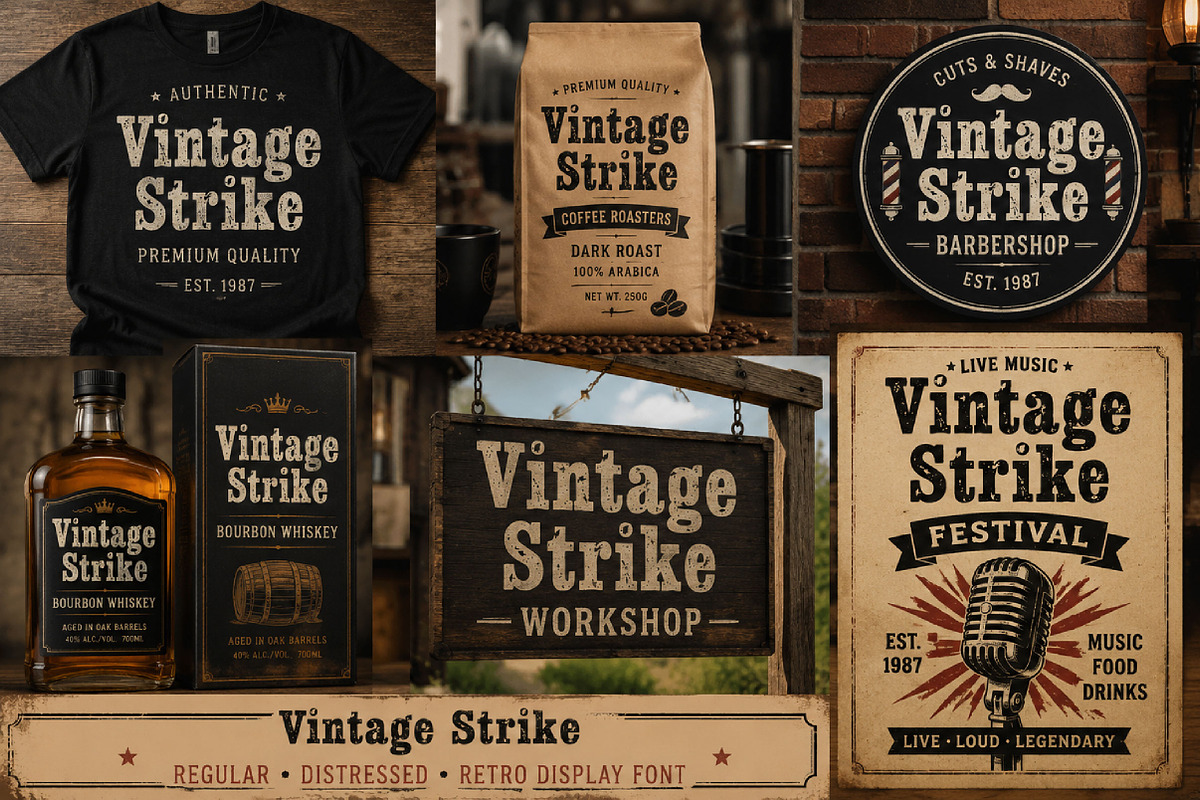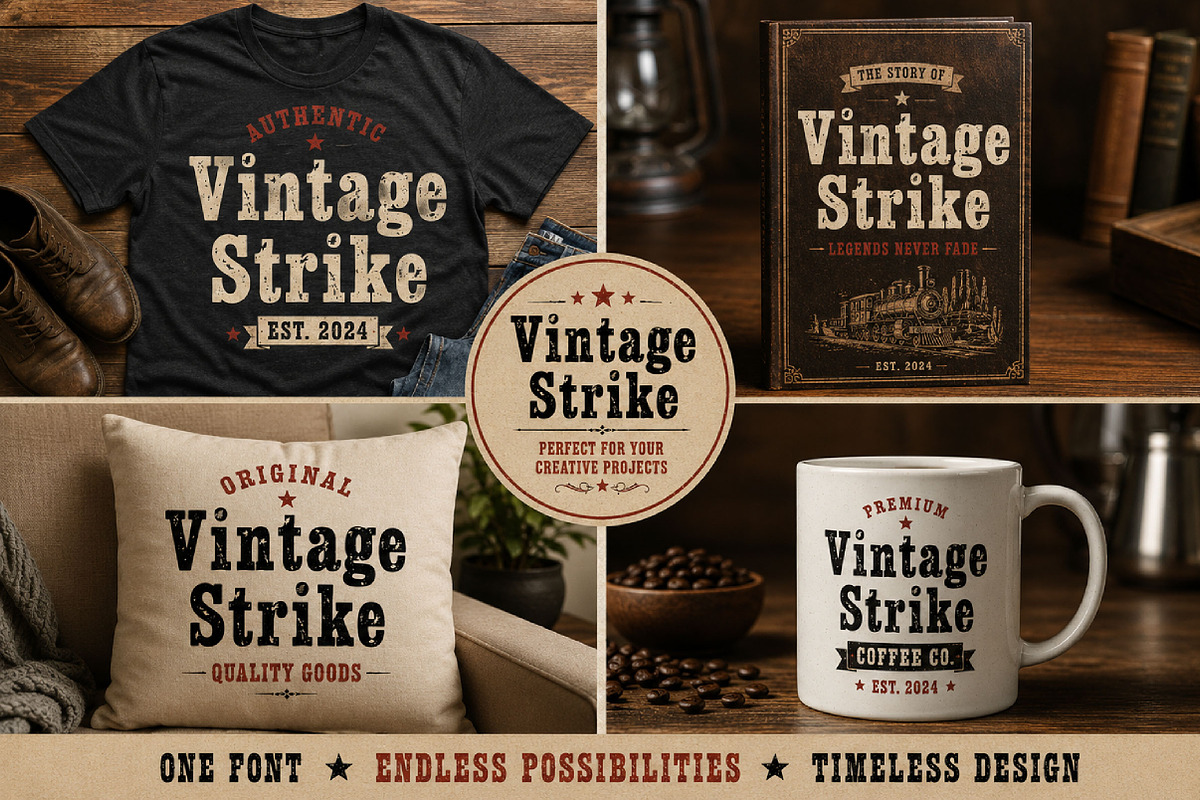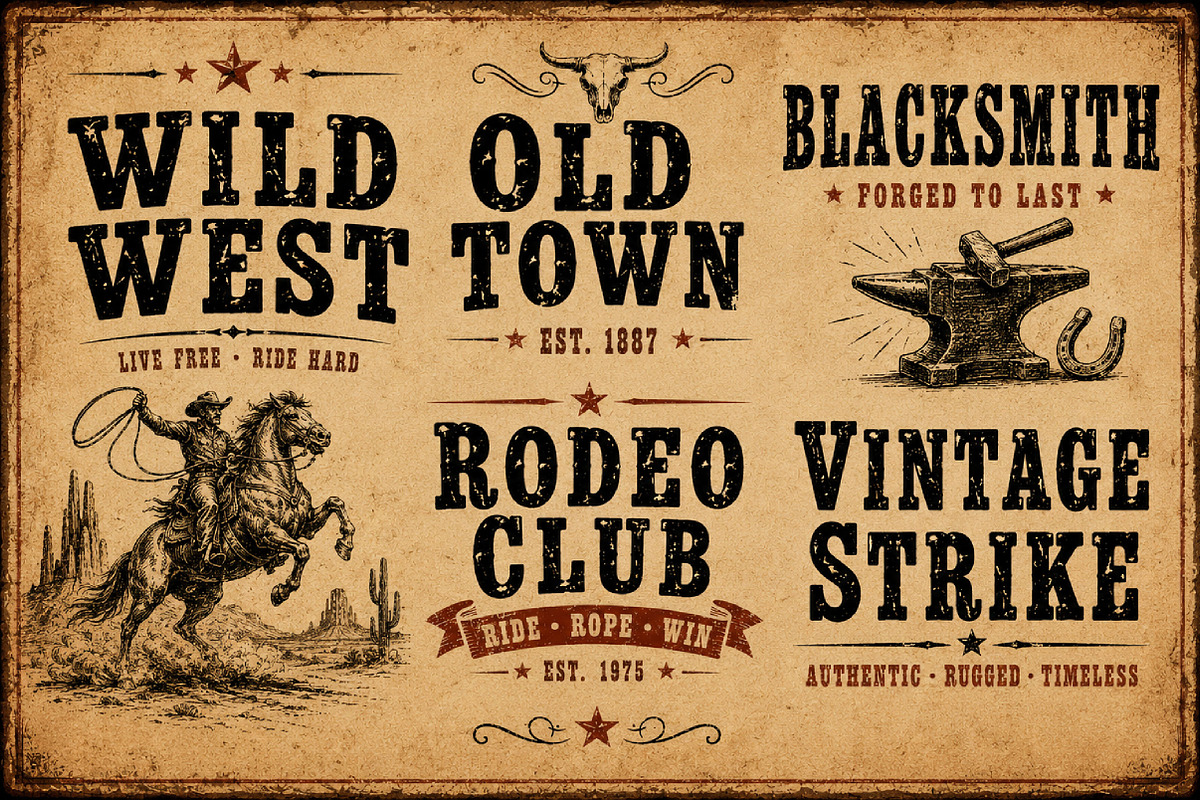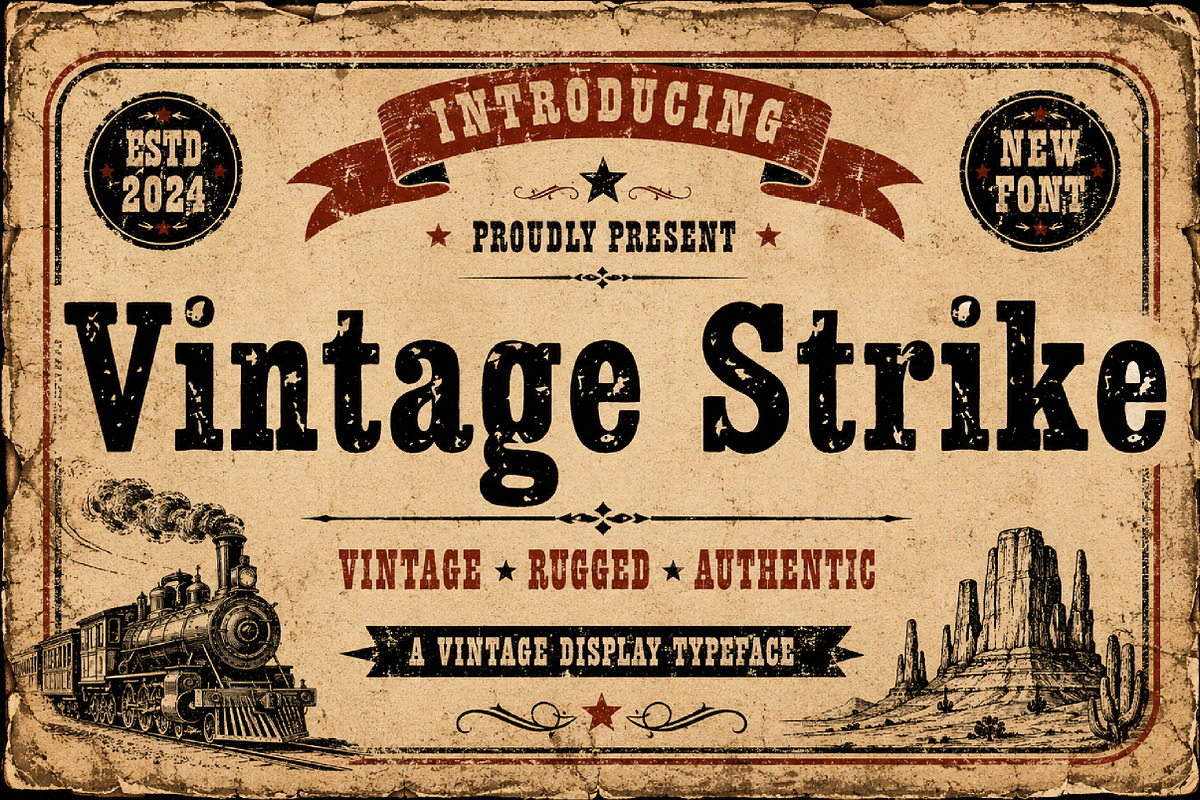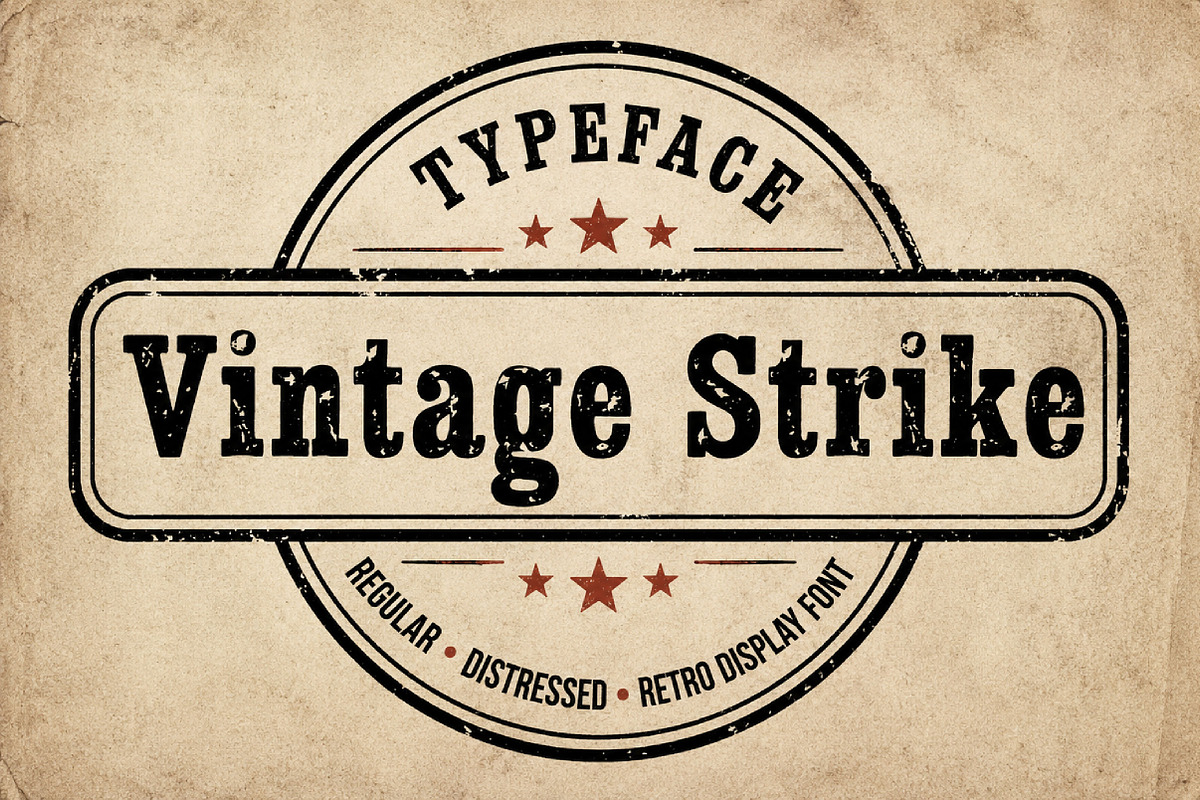
Vintage Strike
Vintage Strike – Distressed Slab Display Font
Short Description
Vintage Strike is a bold distressed slab display font, perfect for vintage logos, posters, labels, packaging, apparel, signage, and retro branding projects.
Full Description
Vintage Strike is a bold vintage display font featuring strong slab-style letterforms and a rugged distressed texture. Its worn and weathered look gives designs an authentic retro feel with a bold, eye-catching presence.
Perfect for logos, posters, labels, packaging, apparel, badges, signage, headlines, and rustic branding, Vintage Strike adds a classic aged character to every project. The distressed details make it ideal for designs that need a handcrafted, vintage, or industrial appearance.
Whether used for print or digital projects, Vintage Strike works beautifully in bold titles, product labels, merchandise, promotional graphics, and retro-inspired branding.
Vintage logos
Posters and headlines
Labels and badges
Packaging design
Apparel and merchandise
Rustic branding
Signage
Retro graphics
Product labels
Distressed typography
Uppercase letters
Lowercase letters
Bold slab style
Distressed texture
Vintage and rustic appearance
Strong display look
Perfect for display use